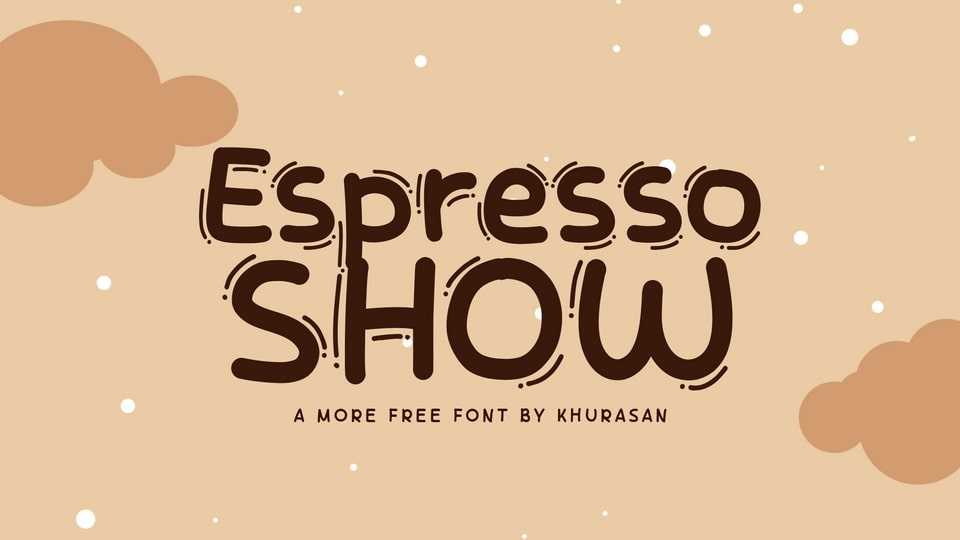
Download Espresso Show font, a hand-drawn cartoon font that’s as amusing as it sounds. This font transforms letters into animated characters, each brimming with a unique sense of fun and playfulness.